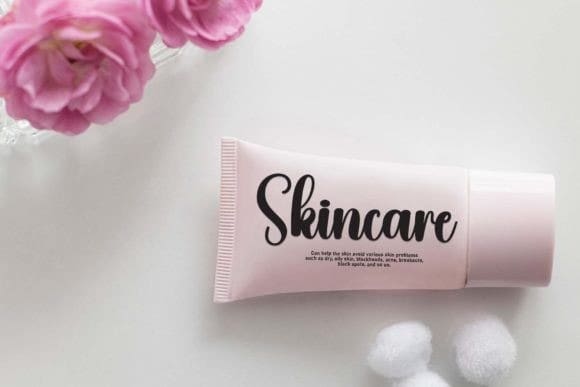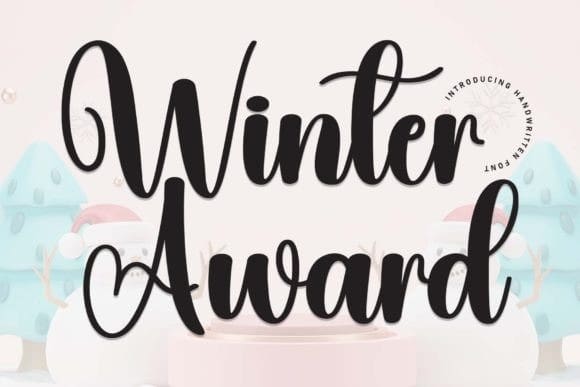
Winter Award Font
Winter Award Font is a flowing handwritten font, described by an elegant touch, perfect for your favorite projects. Fall in love with its incredibly distinct and timeless style and use it to create spectacular designs!